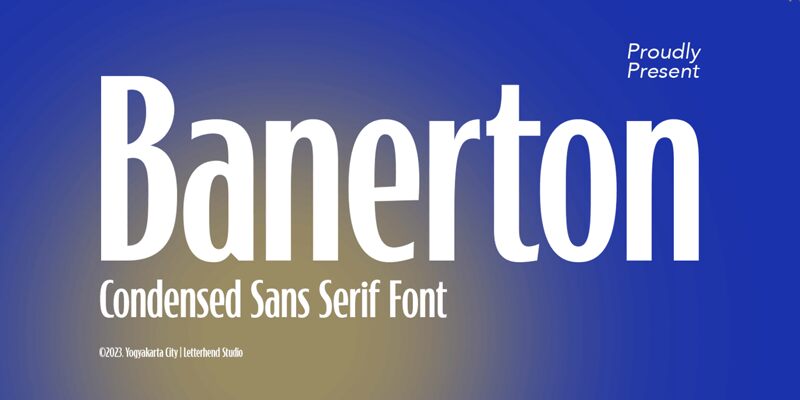
BanertonRoundedDemo
Banerton Rounded, crafted by Letterhend Studio, is a striking sans serif font that exudes modern sophistication with a playful edge. Its condensed width and soft, rounded edges deliver a unique blend of compactness and approachability, making it visually appealing and highly versatile. The smooth curves of Banerton Rounded offer a warm, friendly character while maintaining a sleek contemporary style.
Ideal for branding projects, packaging designs, or editorial layouts, Banerton Rounded’s distinctive personality shines in both digital and print media. Its condensed structure allows for efficient use of space without compromising readability or impact. Whether used in headlines or body text, this font brings refined charm to any design endeavor.